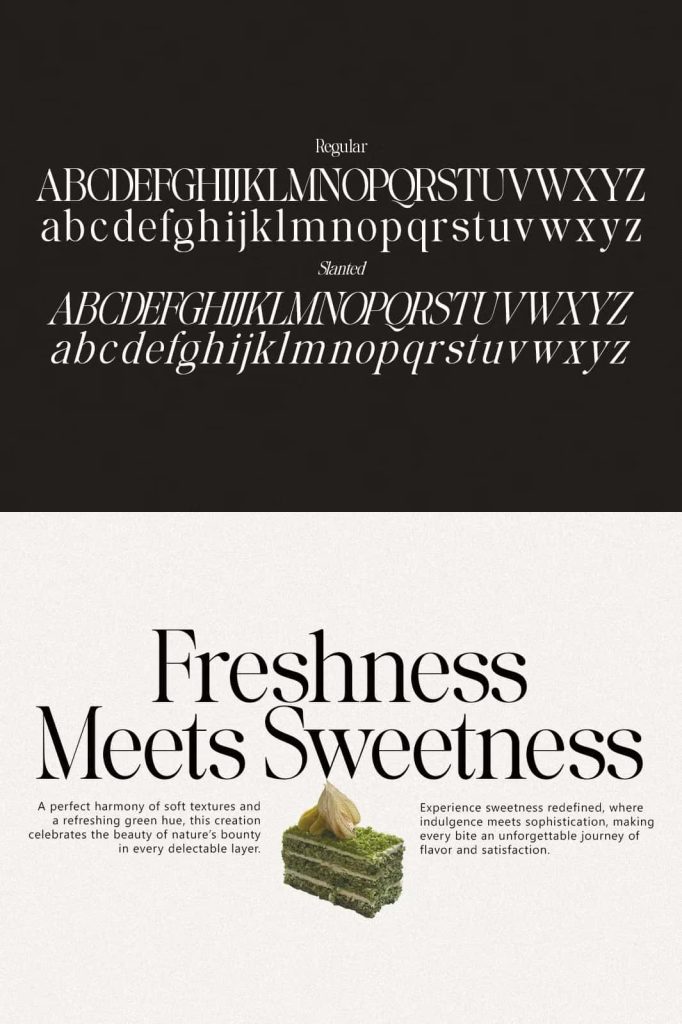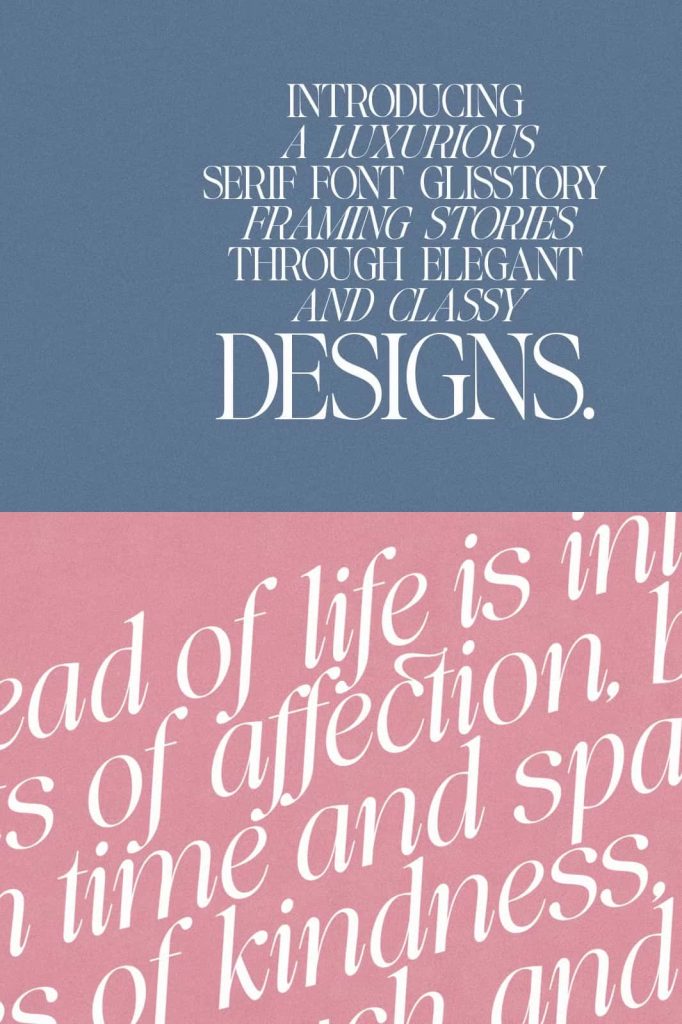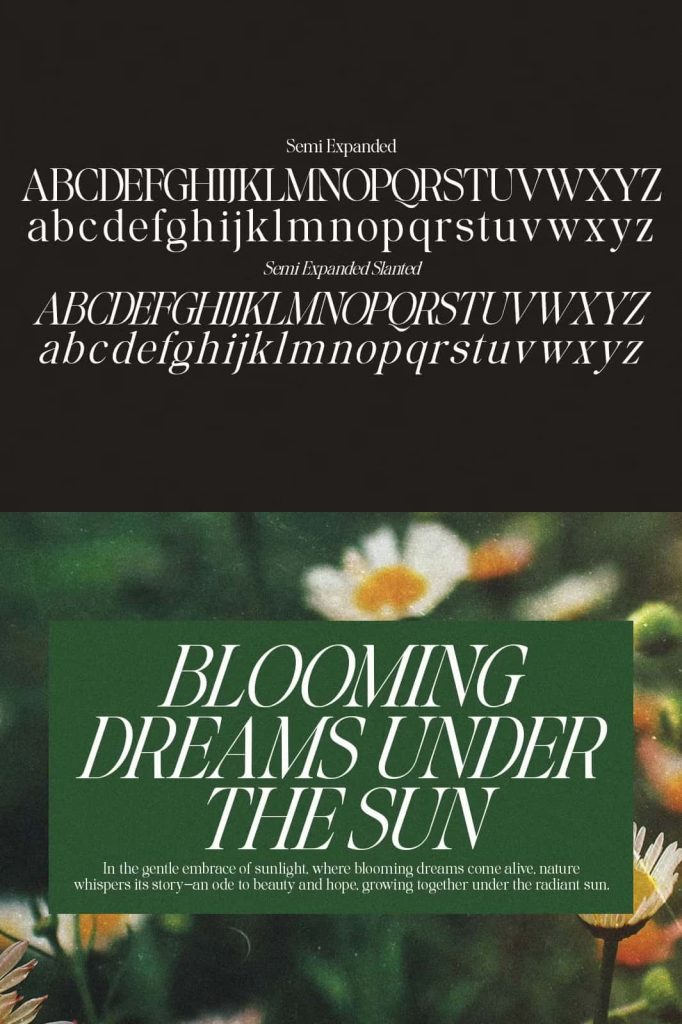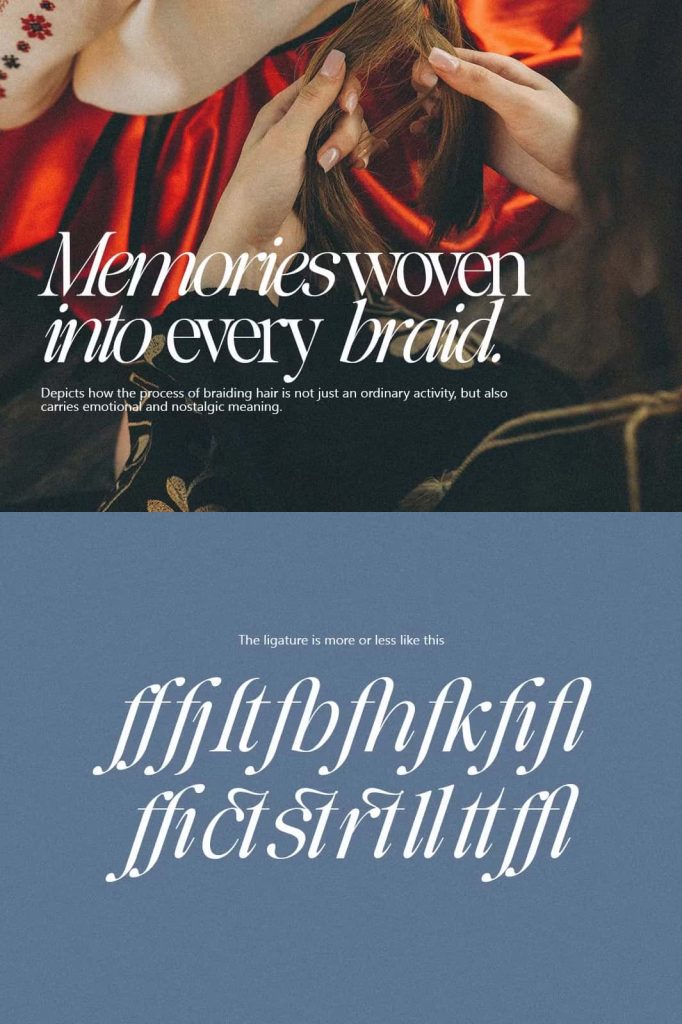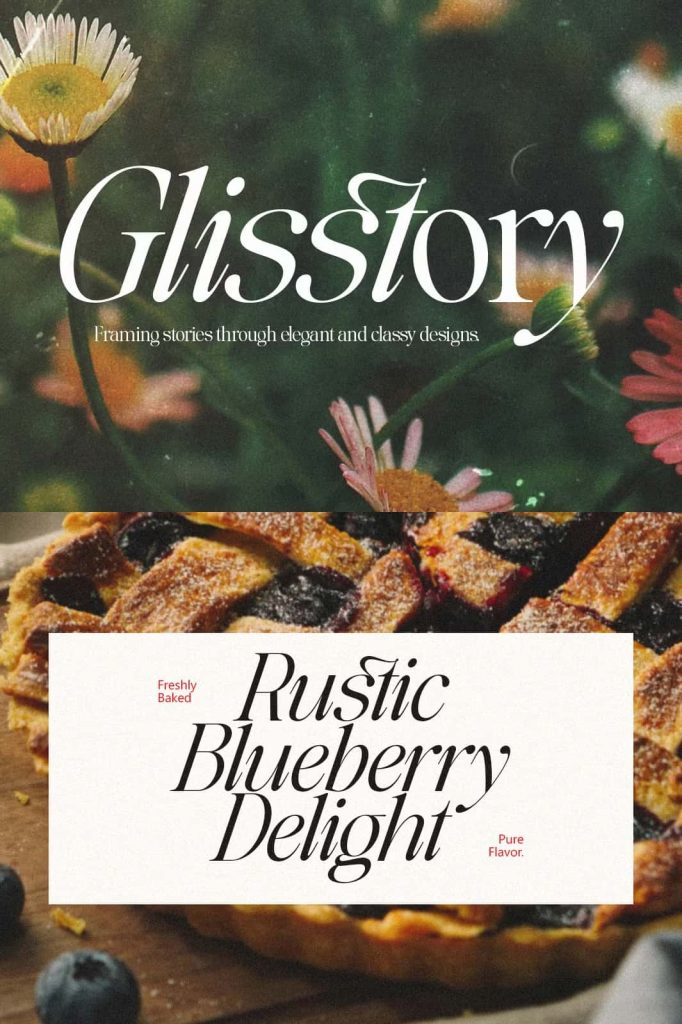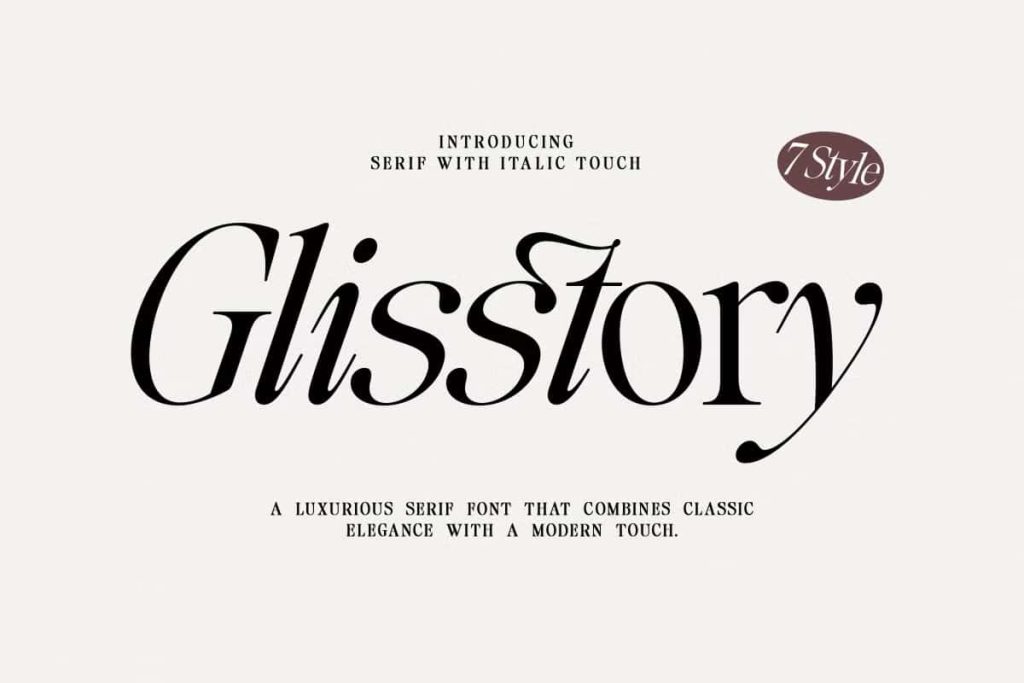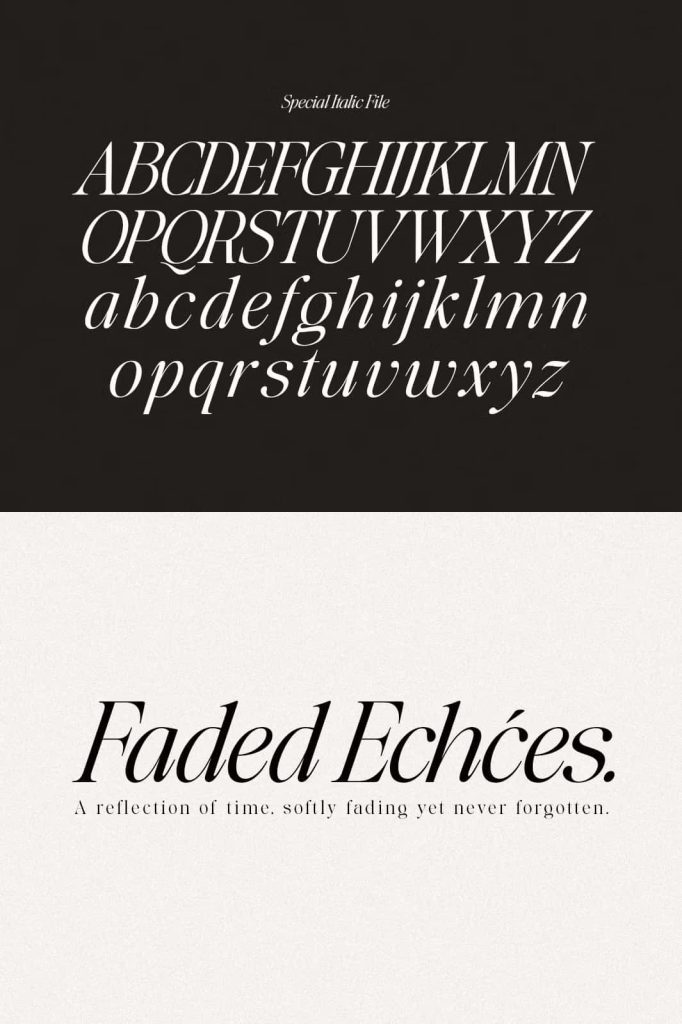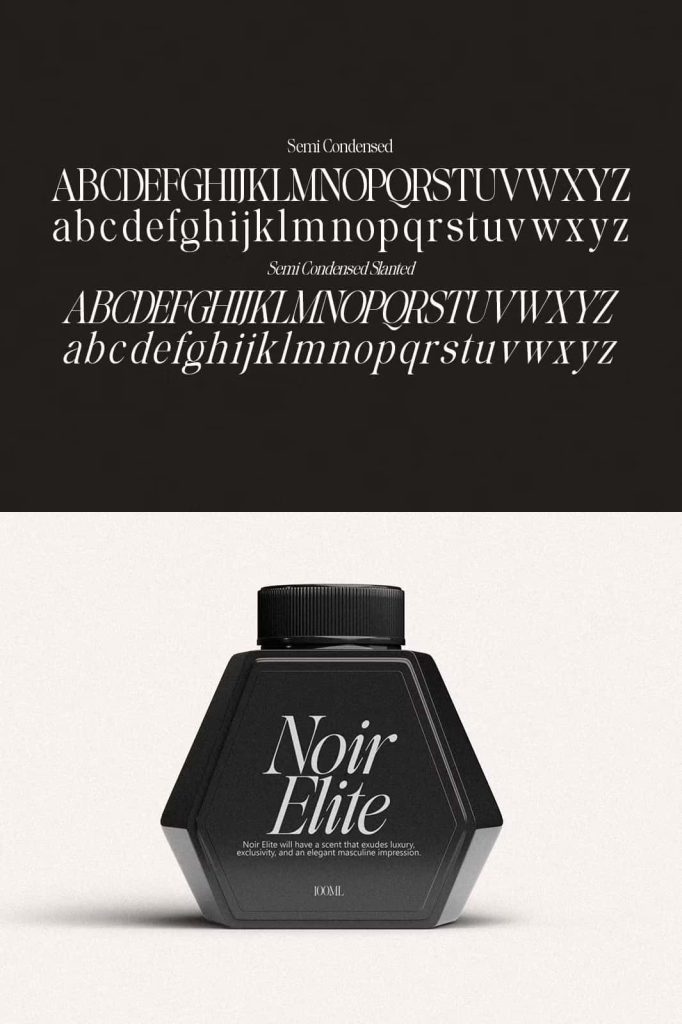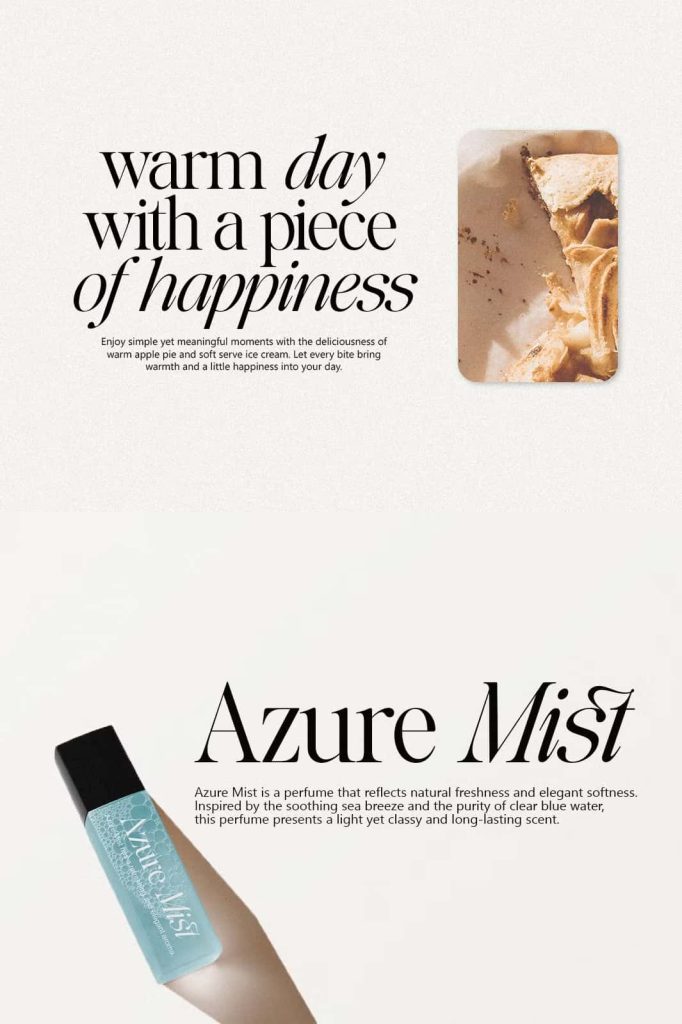
Glisstory Elegant Typeface
Glisstory is a typeface crafted for timeless elegance and refined visual impact. It blends classic sophistication with modern versatility, allowing designers to create compositions that feel luxurious, confident, and unforgettable. With its striking high-contrast strokes and graceful curves, Glisstory transforms simple typography into a powerful design statement.
This elegant typeface does more than decorate text. It shapes perception, builds brand authority, and elevates creative direction. Whether you design for premium branding, editorial layouts, or high-end marketing materials, Glisstory helps you make a lasting impression with clarity and style.
Classic Sophistication Meets Modern Versatility
Glisstory draws inspiration from traditional serif craftsmanship while embracing contemporary precision. Its letterforms balance heritage and innovation, creating a harmonious blend that feels both timeless and relevant. Designers can use it to communicate refinement without appearing outdated.
The structured foundation ensures readability, while subtle detailing adds charm and distinction. This combination allows Glisstory to adapt across various industries, from fashion and beauty to publishing and luxury retail.
High-Contrast Strokes for Dramatic Impact
One of Glisstory’s defining characteristics lies in its high-contrast strokes. The deliberate variation between thick and thin lines creates visual drama and depth. This contrast draws attention instantly and adds a sense of movement to every word.
Use this elegant typeface for headlines, titles, and logo designs where impact matters. The bold verticals command authority, while the delicate hairlines introduce grace and sophistication. This interplay creates typography that feels alive and expressive.
Graceful Curves with Refined Detail
Glisstory’s curves flow smoothly and confidently, enhancing the elegance of each character. The refined terminals and sculpted serifs contribute to a polished aesthetic that feels carefully considered. Every letter carries intention and balance.
These graceful details make Glisstory particularly effective in high-end branding and editorial work. It enhances magazine covers, luxury packaging, invitation suites, and website hero sections with effortless charm.
Create Memorable Luxury Branding
Luxury brands demand typography that communicates exclusivity and quality. Glisstory elegant typeface delivers both. Its sophisticated structure strengthens logos and wordmarks, while its expressive contrast reinforces premium positioning.
Designers can pair Glisstory with minimalist sans serif fonts to create balanced branding systems. This contrast highlights its elegance and ensures readability across various formats, from business cards to billboards.
Perfect for Editorial and Creative Layouts
In editorial design, typography must guide readers while maintaining visual appeal. Glisstory supports strong hierarchy through its dramatic strokes and confident proportions. Use it for feature titles, pull quotes, and section headers to create depth and structure.
The typeface enhances storytelling by reinforcing tone and mood. It feels refined yet approachable, making it suitable for fashion editorials, cultural publications, lifestyle magazines, and creative portfolios.
Versatile Across Print and Digital Media
Glisstory performs beautifully in both print and digital environments. In print, it maintains crisp contrast and elegant detailing on brochures, catalogs, and packaging. On screen, it renders clearly and retains its sophisticated presence in website headers, social media graphics, and digital campaigns.
This adaptability ensures consistent brand identity across multiple platforms. Designers can build cohesive systems without compromising visual integrity.
Designed to Leave a Lasting Impression
Glisstory stands as more than just a font. It acts as a visual signature that defines tone and personality. Its blend of high contrast, graceful curves, and balanced proportions creates typography that resonates long after the first glance.
When you want to captivate audiences and communicate elegance with confidence, Glisstory delivers. It empowers designers to craft layouts that feel elevated, purposeful, and unforgettable.
Why Choose Glisstory Elegant Typeface?
- Timeless serif design with modern versatility
- High-contrast strokes for dramatic visual impact
- Graceful curves and refined detailing
- Ideal for luxury branding and editorial projects
- Consistent performance across print and digital formats
Glisstory elegant typeface helps you build designs that radiate sophistication and strength. It merges classic elegance with contemporary clarity, allowing you to shape compelling visual identities and refined layouts. Choose Glisstory to elevate your typography and create work that stands out with enduring style.